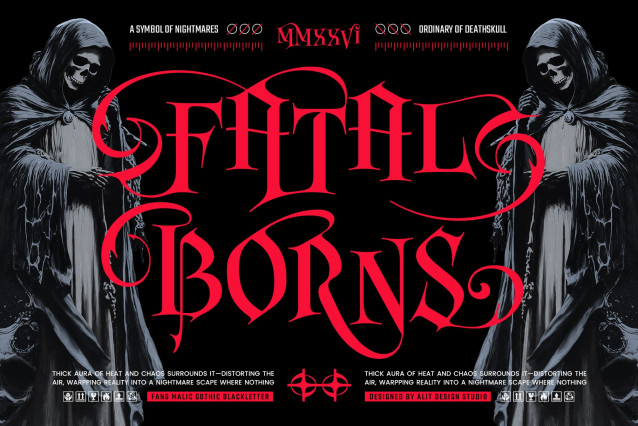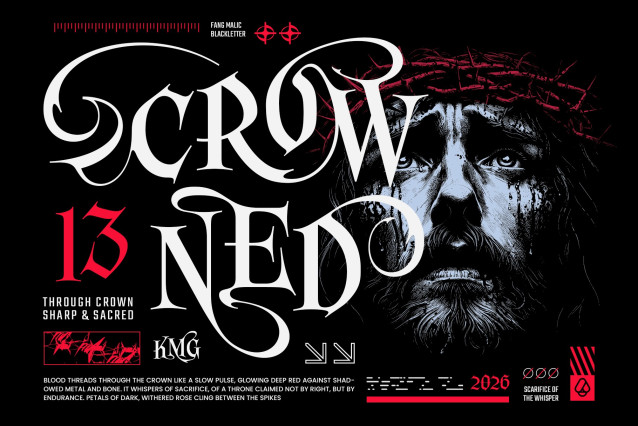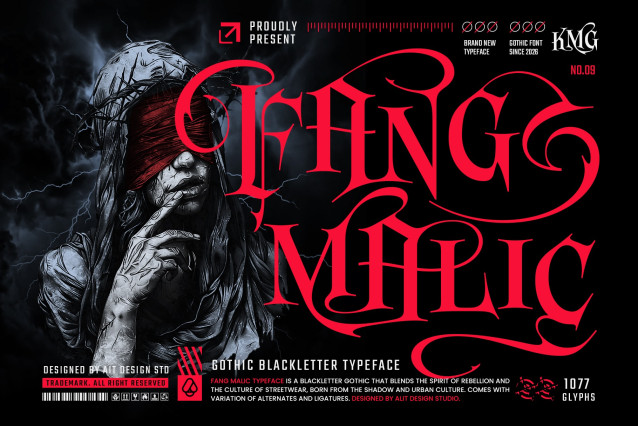
Fang Malic Font
Fang Malic Font a premium Gothic Blackletter font that masterfully blends the raw energy of urban culture with the dark, intricate elegance of vintage typography. Born from the shadows and heavily inspired by the modern streetwear movement, Fang Malic delivers a bold, striking statement for any design project that needs to stand out.
Crafted with meticulous attention to detail by Alit Design Studio, this typeface goes far beyond a standard character set. It is an absolute powerhouse for typography enthusiasts and professional designers, boasting a massive collection of 1,077 glyphs.
Whether you are designing impactful apparel graphics, edgy tattoo studio branding, heavy metal album covers, or dramatic editorial layouts, Fang Malic gives you unparalleled creative freedom. With extensive stylistic sets and complex ligatures, you can effortlessly customize your typography to look authentically hand-lettered and beautifully ornate.